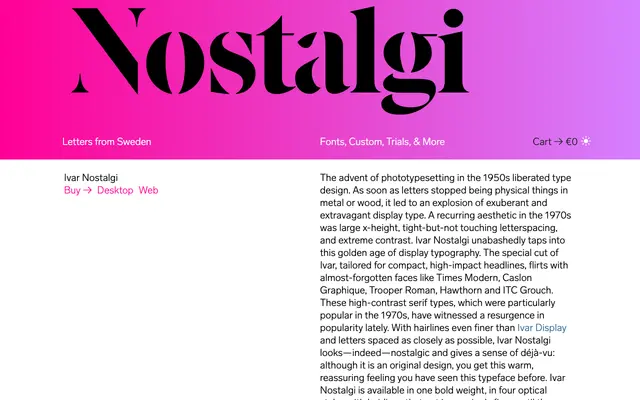
Ivar Nostalgi
Letters from Sweden · Göran Söderström · 2018
Ivar Nostalgi specimen from Letters from Sweden
A single bold-weight, high-contrast display serif in four optical styles including a stencil cut, evoking the exuberant phototypesetting aesthetics of the 1970s.
Designed by Göran Söderström and released in 2018, it draws on faces like Times Modern, Caslon Graphique and ITC Grouch to recreate the tight spacing and extreme contrast of 1970s phototypesetting-era display type. Four optical styles progress from tight hairlines to a stencil version where those hairlines disappear entirely, giving the family an unusual formal range within a single weight. The result reads as familiar without being derivative, producing the déjà-vu effect its name promises.
Ivar Nostalgi is a high-contrast serif with extreme stroke contrast and tight letterspacing, explicitly referencing 1970s phototypesetting-era display faces like Times Modern and ITC Grouch. Its stencil cut and optical variants place it firmly in the display category.